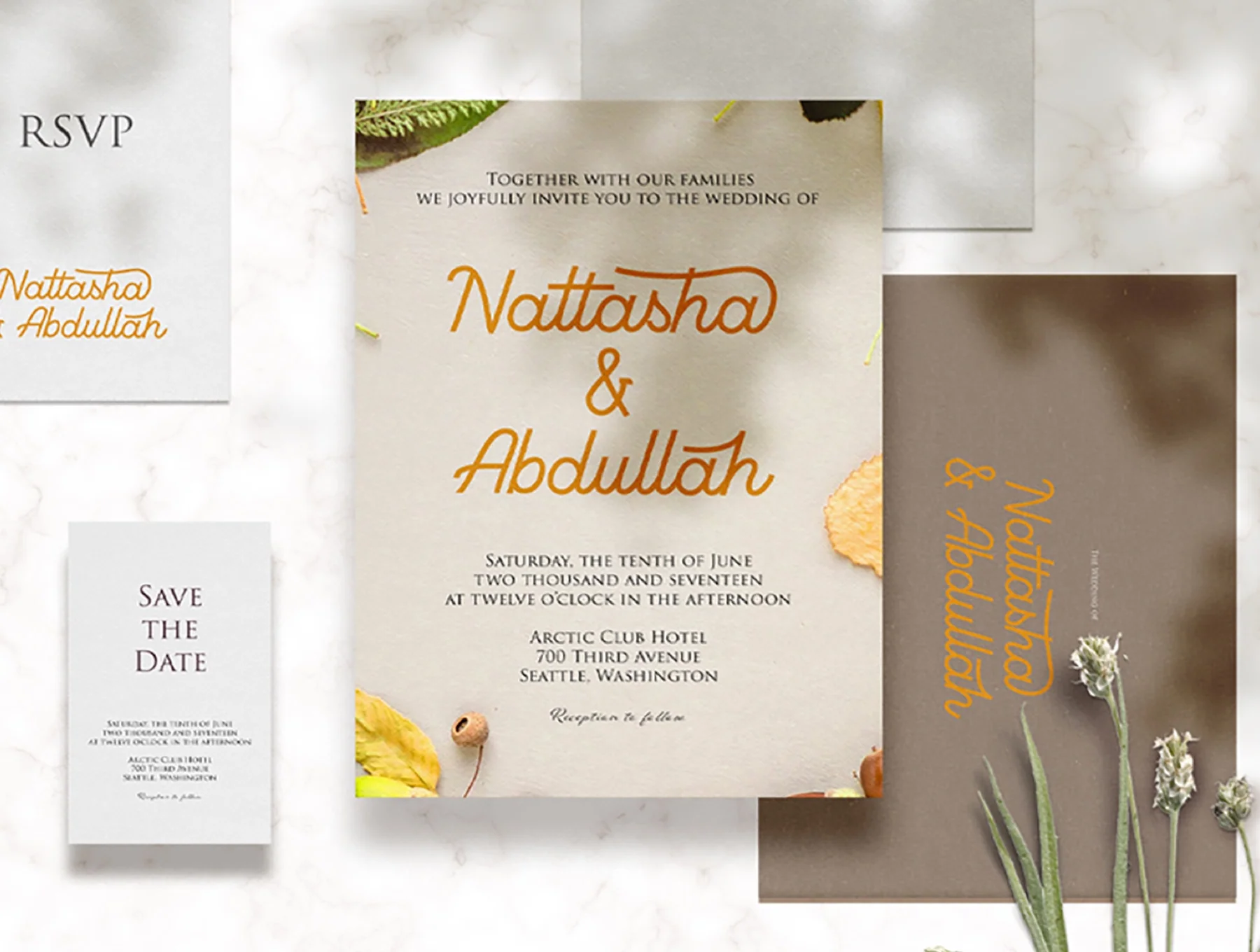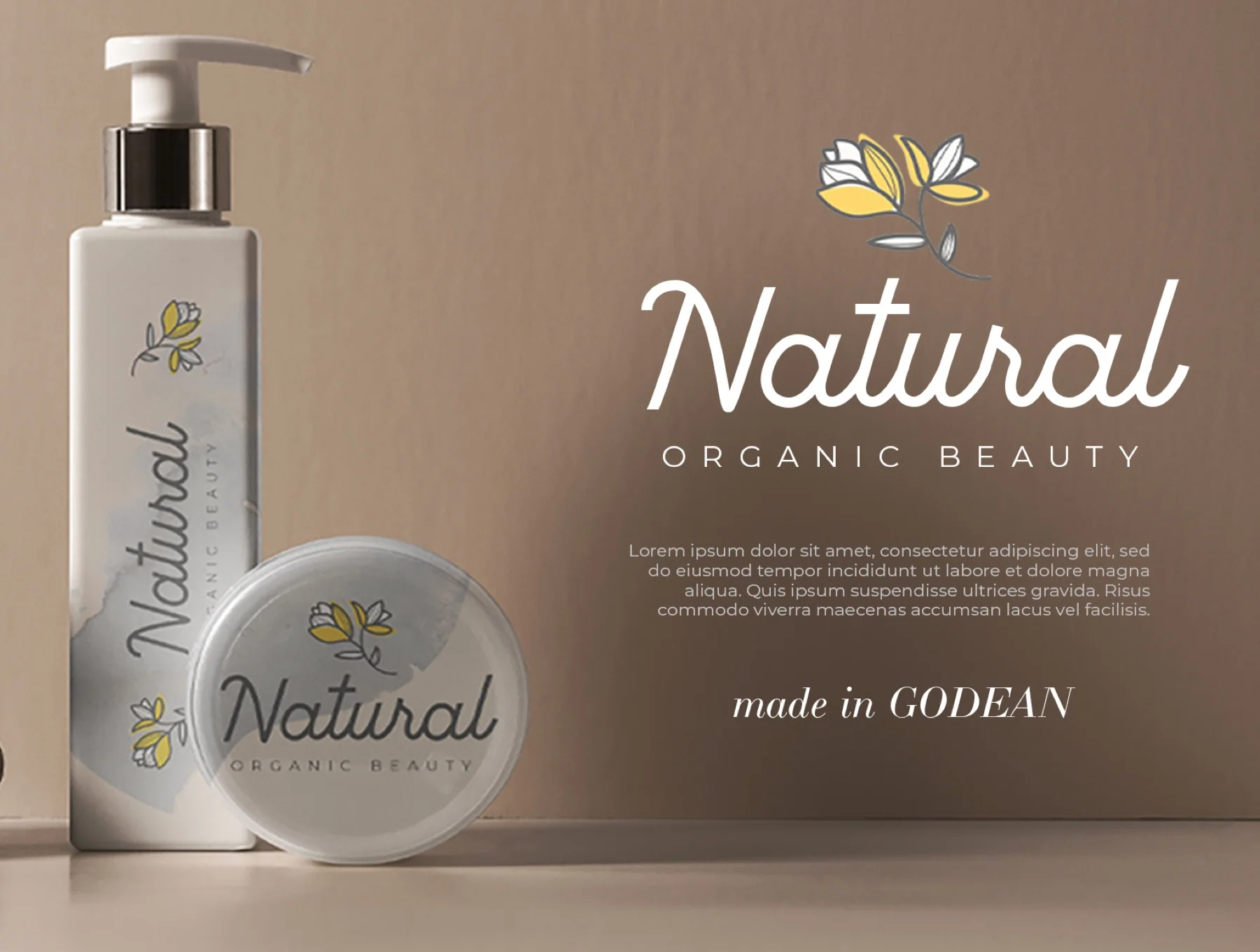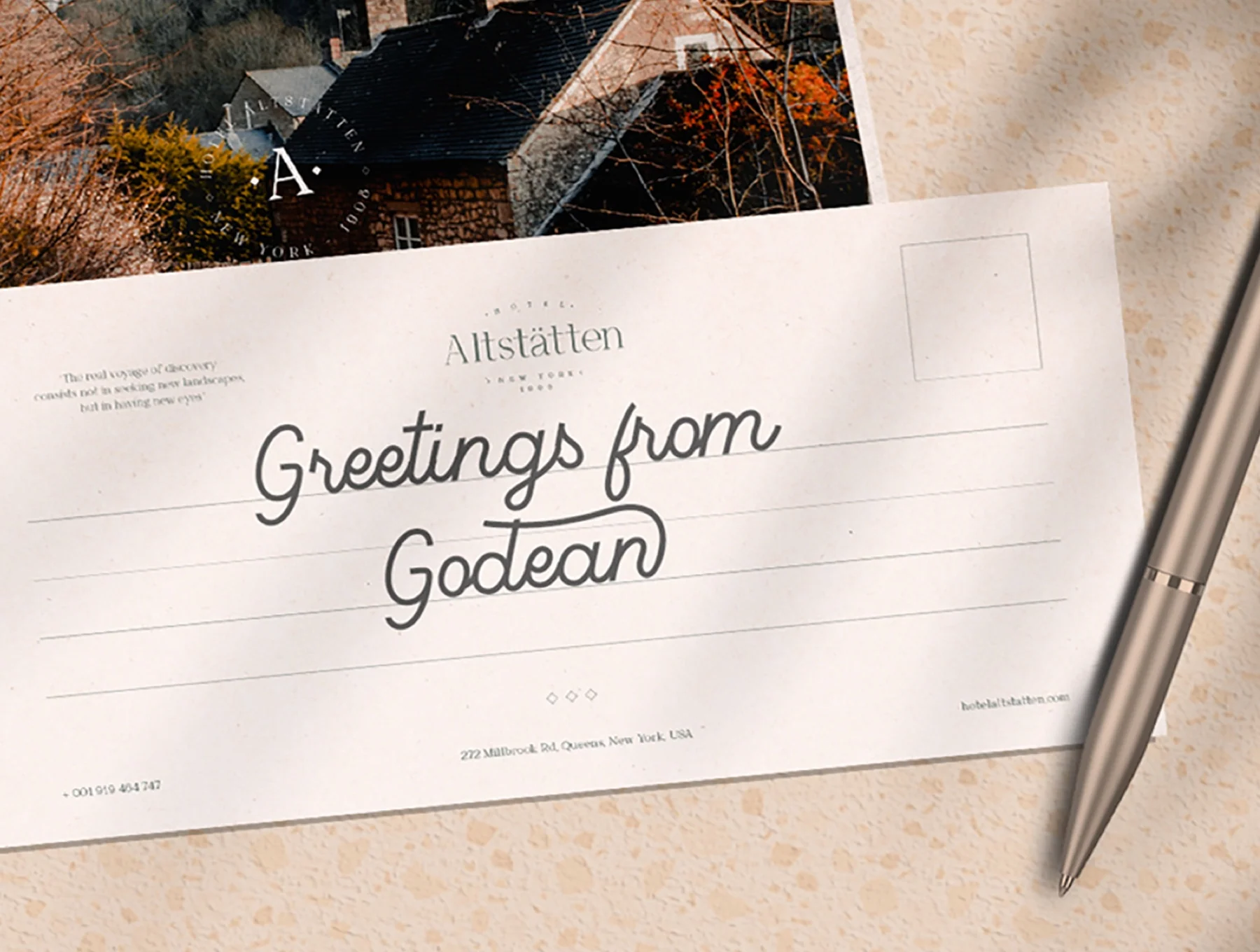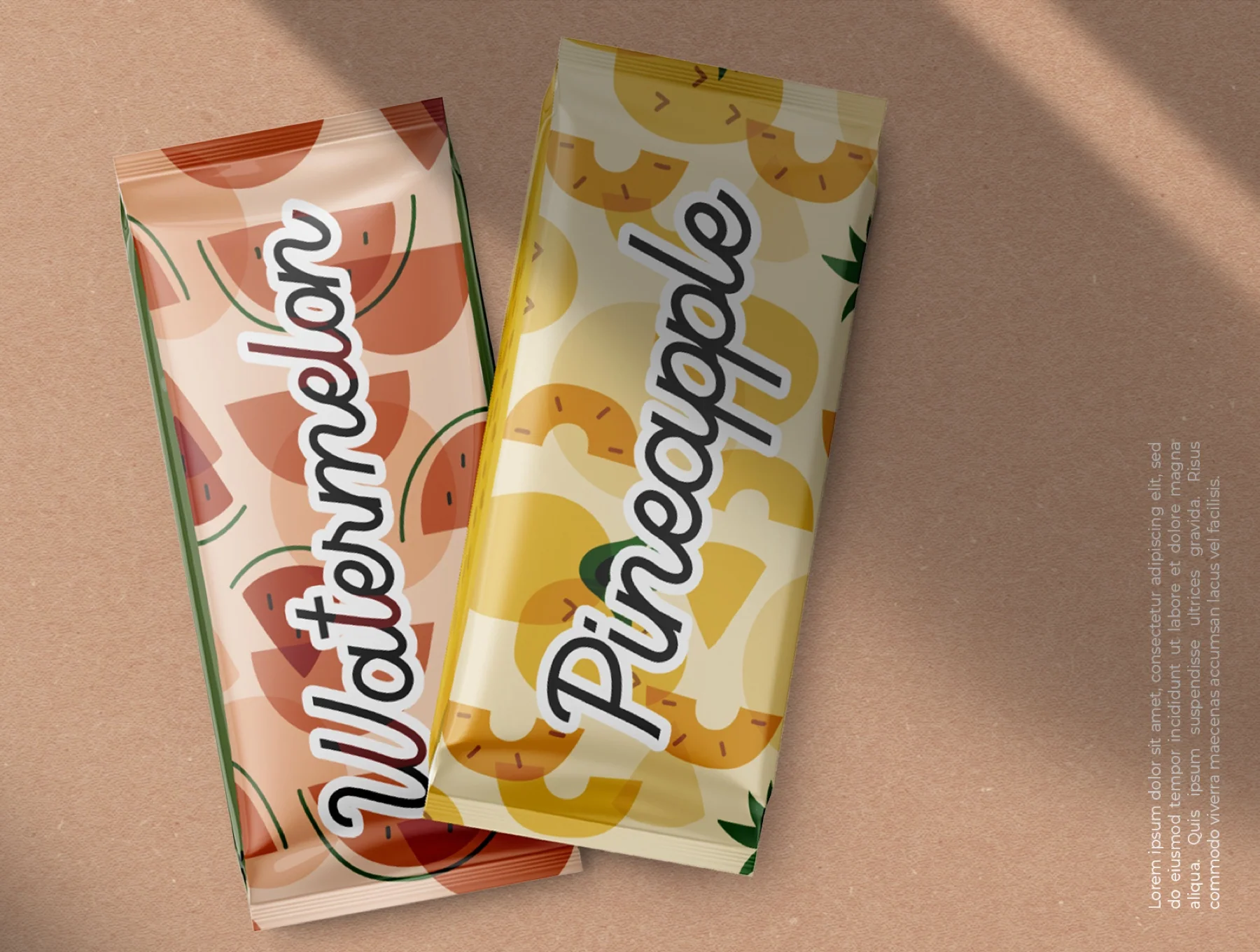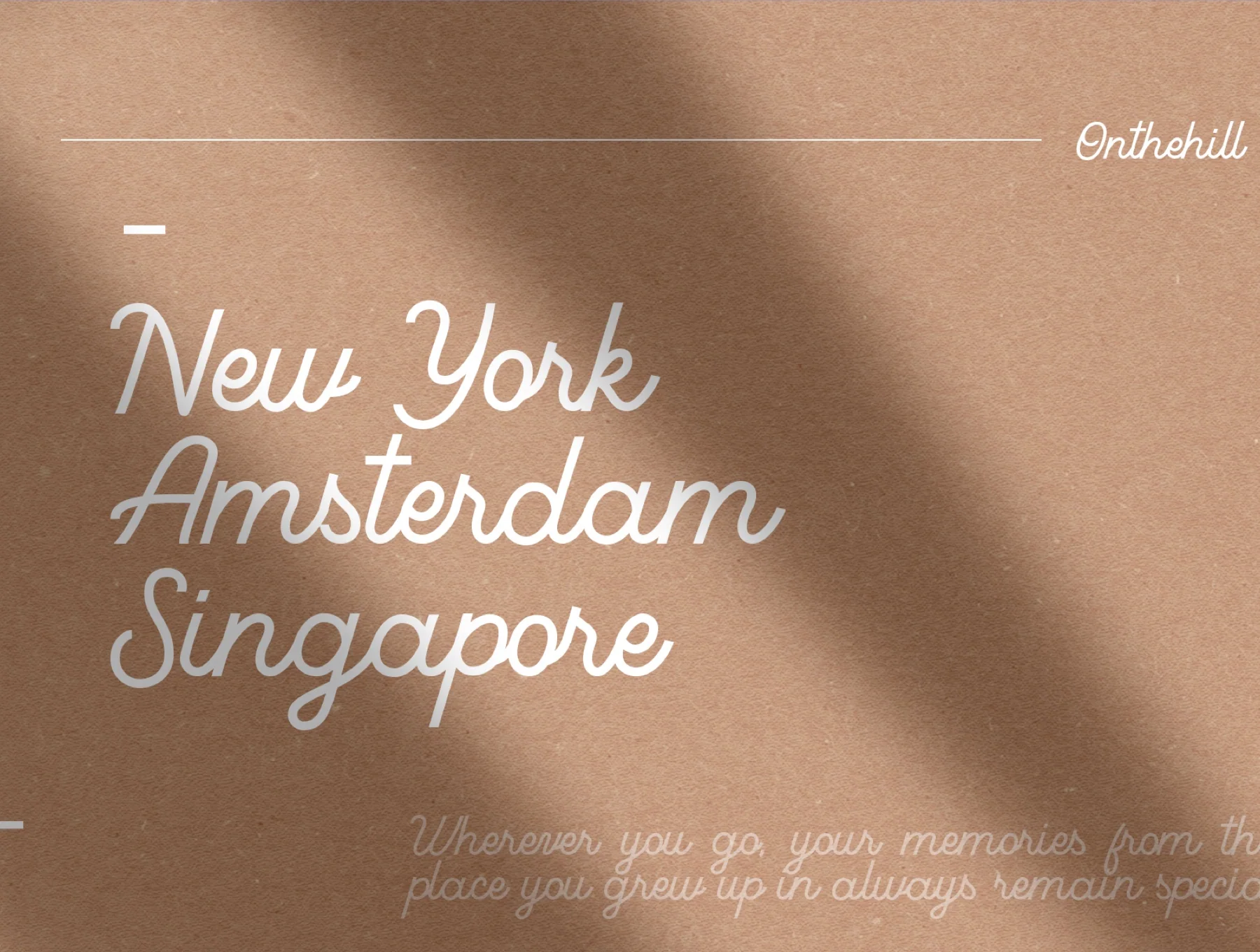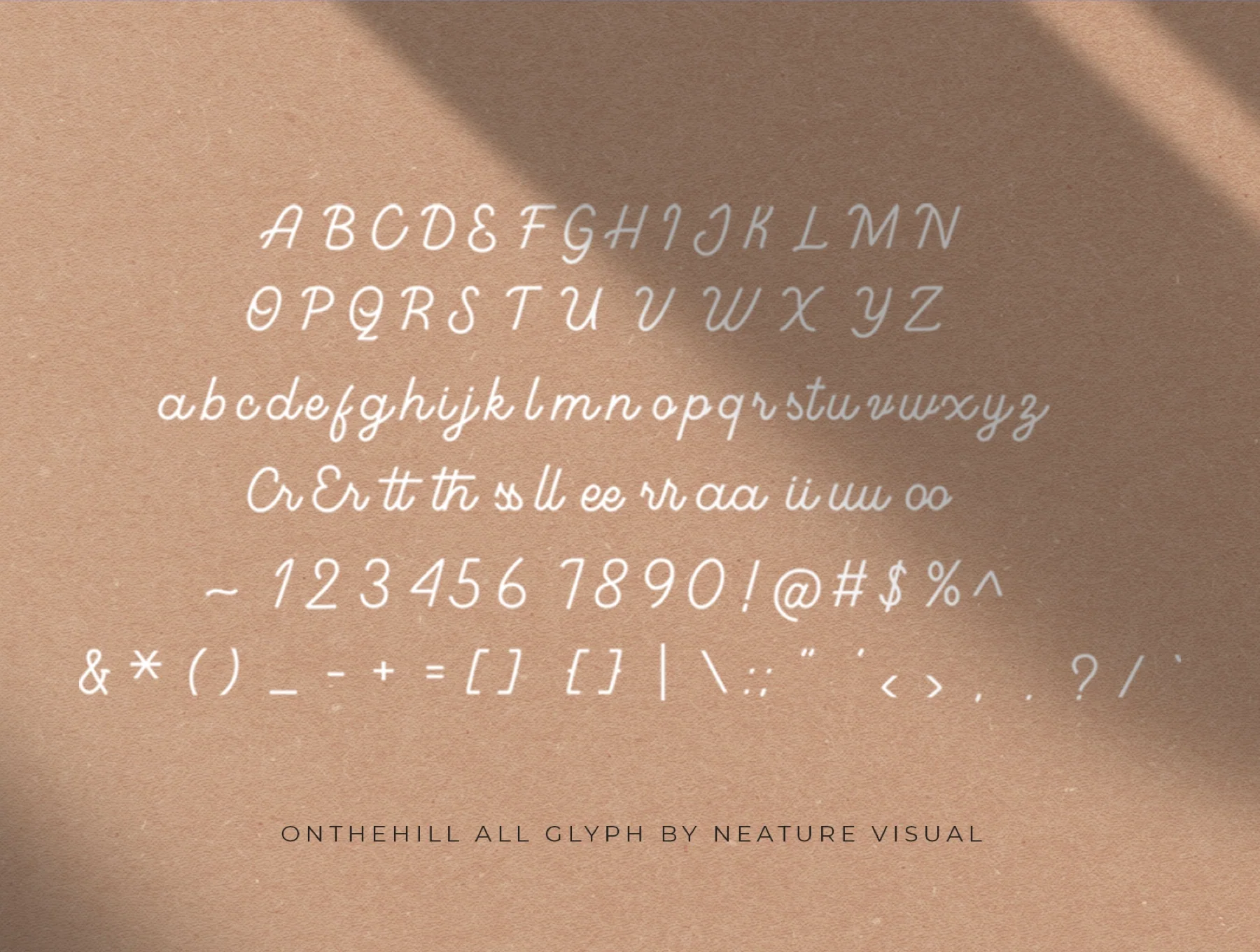
On The Hill - Handlettering Font
Signature-style lettering for any product, ideal for printable templates
Signature-inspired hand-lettered style
Distinctive design
Compatible with product packaging
On The Hill Font brings a bold, distinctive character to your creative work. Perfect for branding, titles, wedding stationery, invites, signatures, logos, labels, and many other design uses.